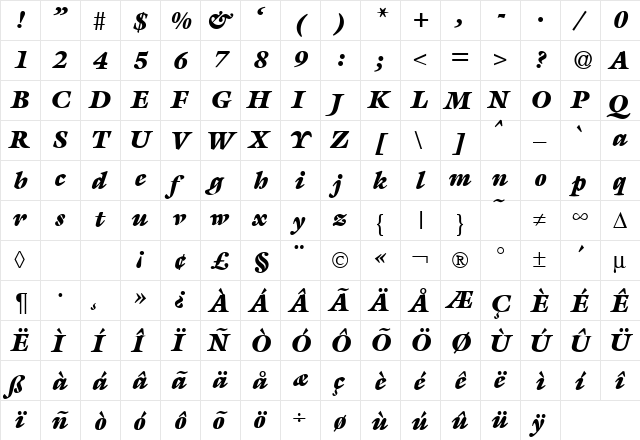
MatthewUltra RegularItalic
MatthewUltra offers clean, dependable letterforms without strong stylistic allegiance, making it a practical choice for designers who need flexibility. The slanted form adds forward momentum and visual energy.